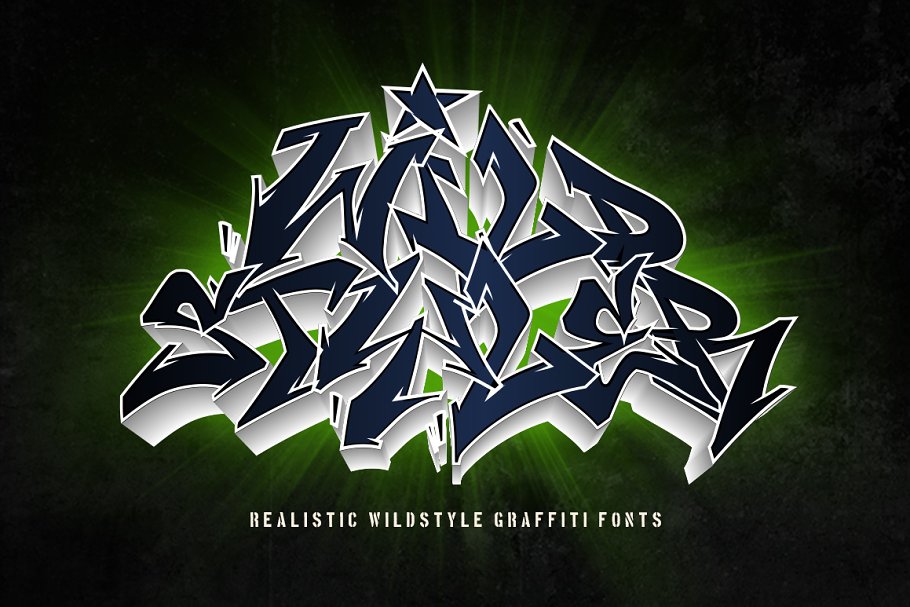
Introducing Wildstyler, the ultimate graffiti-inspired font family that will take your designs to the next level! Created by Tomat Studio, this font family is the perfect choice for those looking to add an edgy, urban feel to their designs.
With Wildstyler, everyone can create wildstyle graffiti easily, regardless of their experience level. The font is a combination of Tomat Studio's original graffiti style and several of the best graffiti styles from around the world. The result is a truly unique and versatile font family that can be used for a wide range of design projects.
Whether you're designing graffiti assets, street art concepts, or hip-hop event flyers, Wildstyler is the perfect choice. The font family comes with multiple styles, so you can mix and match to create the perfect look for your design. Plus, you can add drop shadows or extrude effects to make your designs more realistic and add highlight shine for an even cooler effect.
Although the kerning and spacing are already set, we recommend adjusting the kerning manually for the best results. After all, this is real graffiti style, not just an ordinary font.